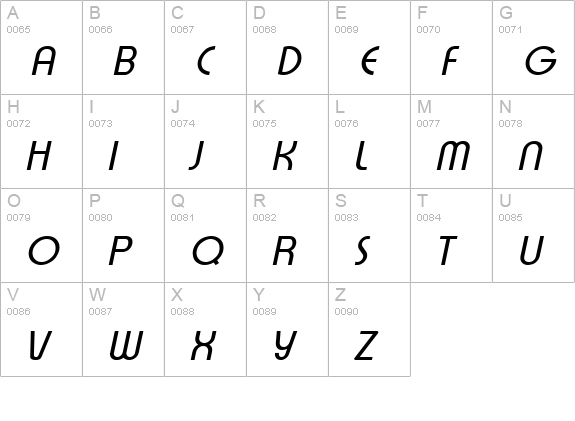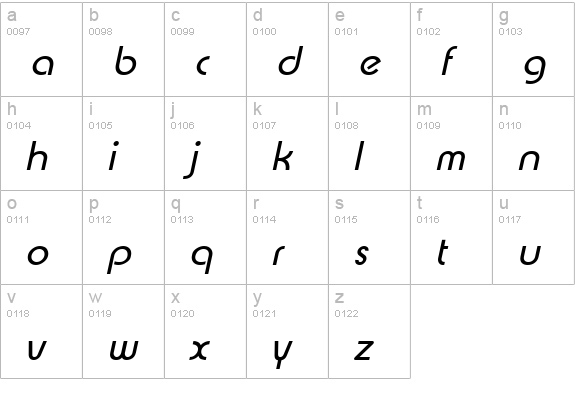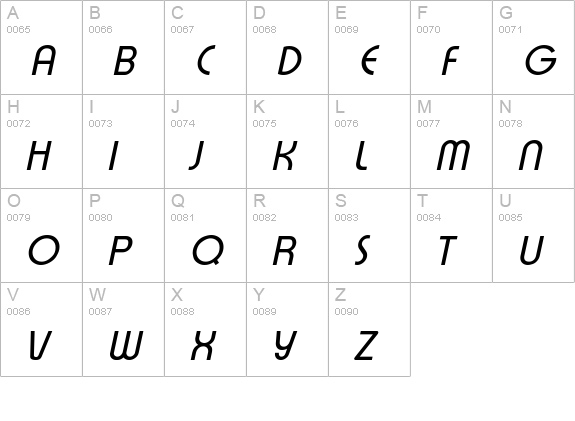
Xpress SF Italic is a distinctive, italic variant in the Xpress typeface family \xE2\x80\x94 well suited to design and typography projects.
Xpress SF Italic font exudes a sense of modern sophistication and sleek elegance with its stylish slanted design. The italicized characters add a touch of flair and creativity to any project, making it perfect for headings, titles, and other display purposes. The flowing curves and unique letterforms of Xpress SF Italic create a visually captivating look that is sure to make a statement. Best of all, Xpress SF Italic is completely free to download at FontsMarket.com. This means you can add this stunning font to your collection without any cost, allowing you to enhance your designs with a touch of class and sophistication. Whether you're working on a branding project, a website design, or any other creative endeavor, Xpress SF Italic is the perfect choice to elevate your work to the next level. Download it today and start creating with style and flair!